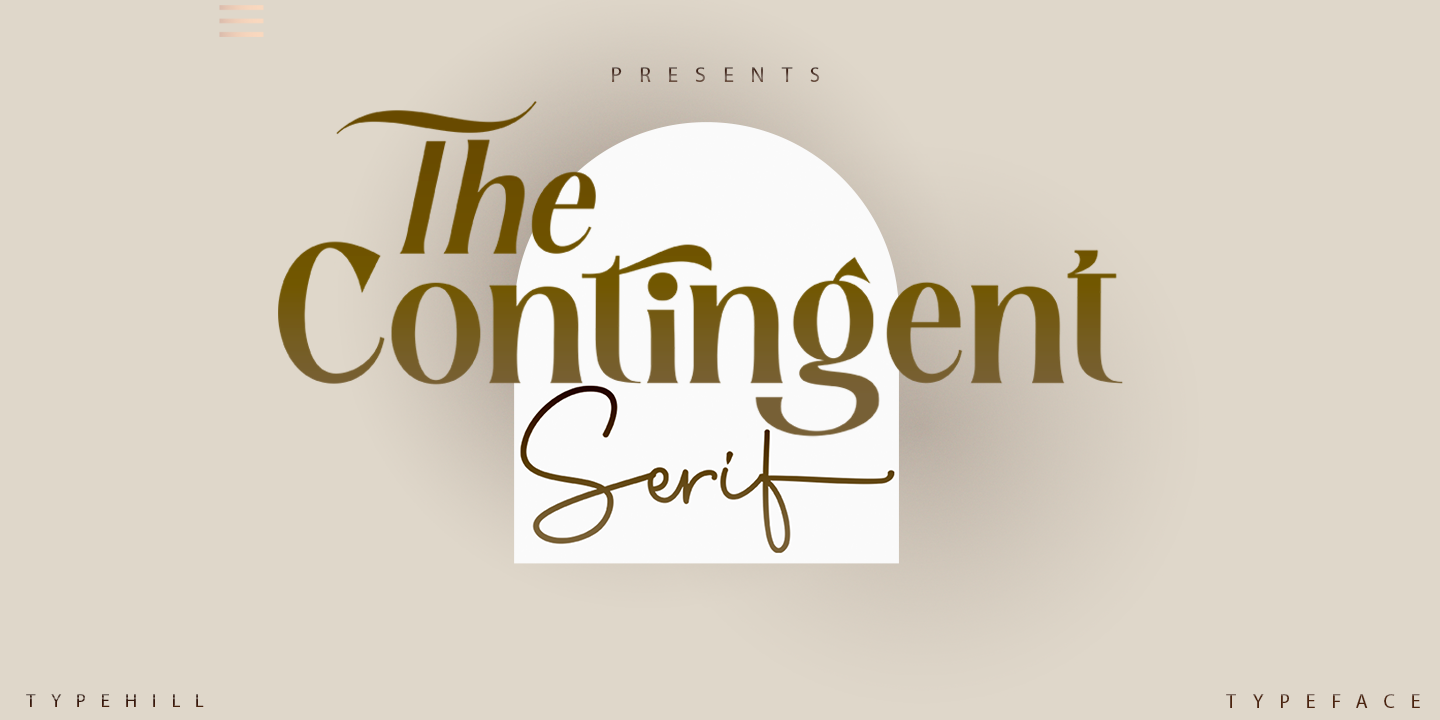
Contingent Font Duo is an exceptionally versatile and dynamic pairing, designed to bring a harmonious and impactful presence to your designs. Imagine this powerful duo gracing the branding for a modern startup, providing a sophisticated contrast for a stylish magazine layout, or adding a unique blend of elegance and boldness to event posters. Its thoughtful combination of contrasting styles makes it ideal for digital advertisements, sophisticated websites, and any print media where both readability and a distinctive personality are key. From impactful logos to compelling editorial content, this font duo offers a complete typographic solution that elevates your visual communication.
What makes Contingent Font Duo so exciting is its intelligent pairing of two complementary font styles. Typically, this means you'll find a strong, perhaps modern sans-serif or bold display font perfectly matched with an elegant script or a refined serif. This strategic combination allows designers to create immediate visual hierarchy and add depth to their typography, conveying both directness and nuance within a single design. It’s a ready-made solution for achieving a professional and highly engaging look without the guesswork of pairing fonts yourself, offering unparalleled stylistic versatility and ensuring your message is both clear and captivating.
The Contingent Font Duo usually comprises two distinct font families, each with its own set of characteristics to maximize the duo's versatility. You can expect to find:
Contingent Sans/Display Font: This part of the duo typically offers a range of weights (e.g., Regular, Bold, perhaps Light), ensuring it can handle headlines, subheadings, and potentially even body text with clarity and strength.
Contingent Script/Serif Font: This element usually comes in a beautifully crafted Regular weight, often complemented by stylistic alternates, ligatures, and swashes, allowing for elegant accents, signatures, or decorative text.
This curated combination provides a comprehensive toolkit for designers to create cohesive and visually appealing projects across various applications.